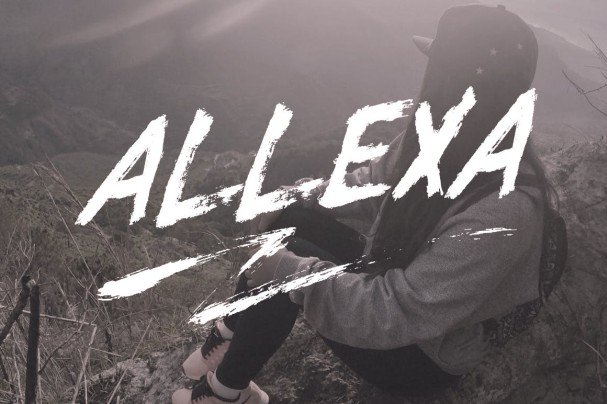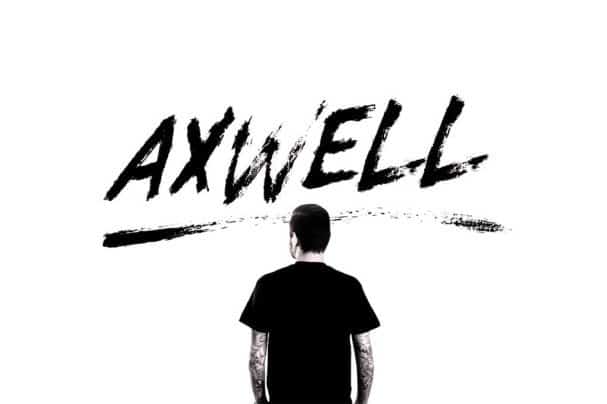
Axwell Brush Font
Axwell Brush Font falls into the class of normal fonts. This is an abang typeface and it is quite similar to the milea handwritten brush font, and it is for free download. This font has been attractively commonplace by using a pointer with a tinny brush on the acrylic newspaper. Its appearances are fantastic in darkish paint sun shades.
It’s miles the thirsty script, and we discover it no longer possible to withstand due to its pinnacle-notch splendid styles. Alas, you could maximum, in fact, use it in adobe photoshop and illustrator. Axwell Brush Font Free This font has a stylish appearance and touches with its threesome of outlines in respectively letter creation. Apply it to not unusual to big sizes for headings, works of artwork and hundreds greater.